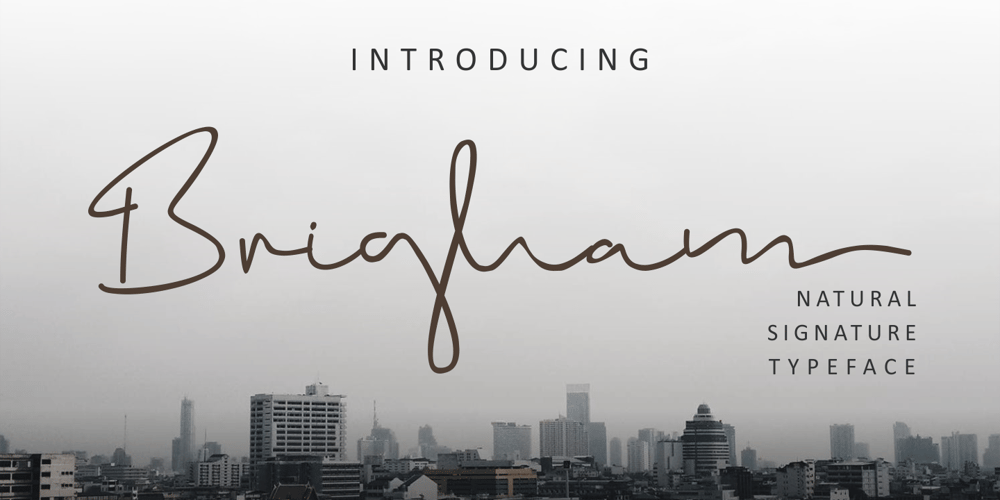
Brigham Font Family was designed by Dimas Ardhi and published by GlyphStyle. Brigham contains 1 styles and family package options. Brigham is a handwritten signature text with natural flow and style. This signature font is very suitable perfect for branding projects, logos, wedding designs, social media posts, advertisements, product packaging, product design, labels, photography, watermarks, invitations, stationery and any project that requires a handwritten signature taste.